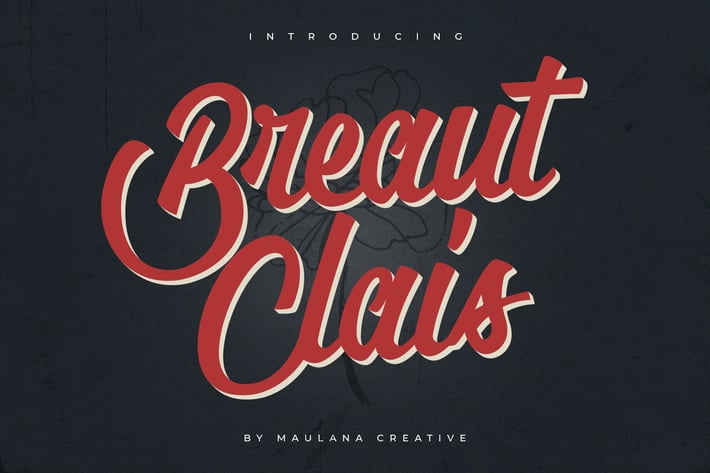
Breaut Clais Vintage Script Font
Breaut Clais got style and love all the luxuries in life. It's highly recommended to turn your Opentype features (Ligature) on while using the script font. Your text looks like natural handwriting.
Enjoy this curve.